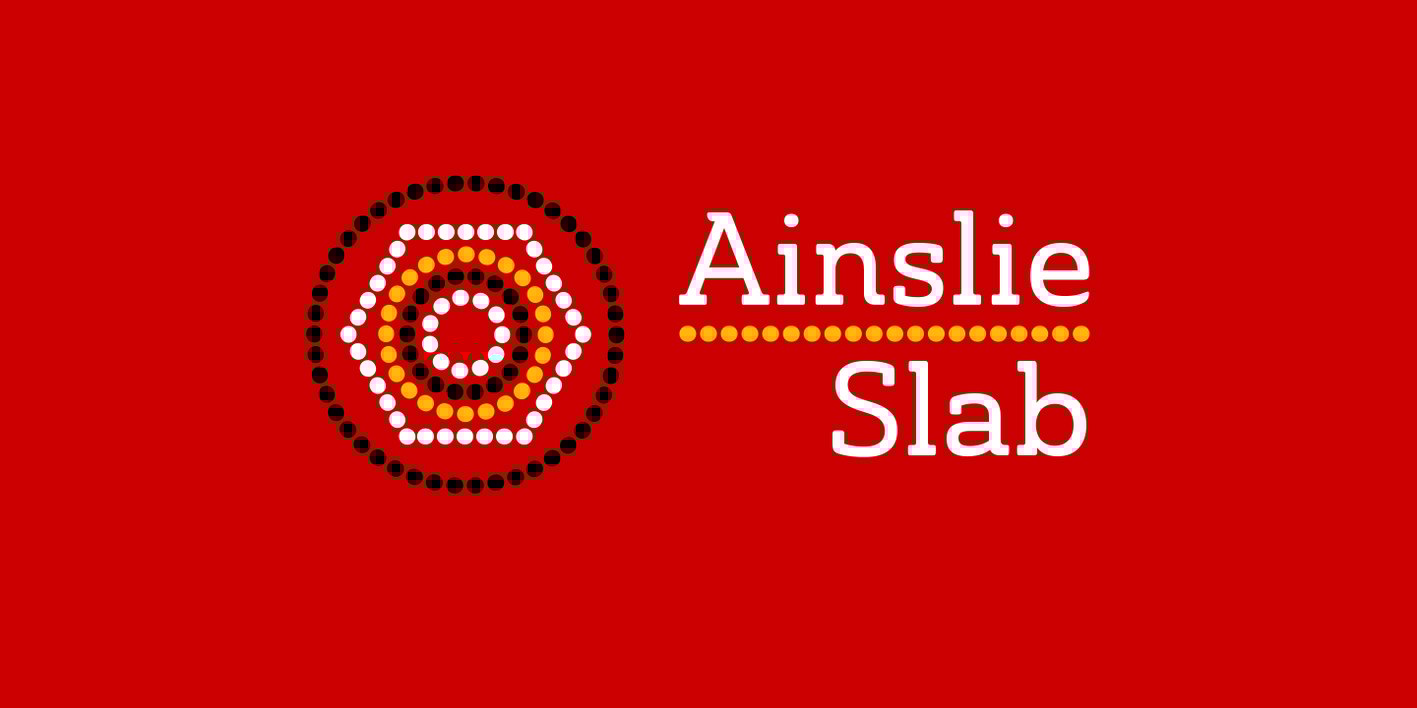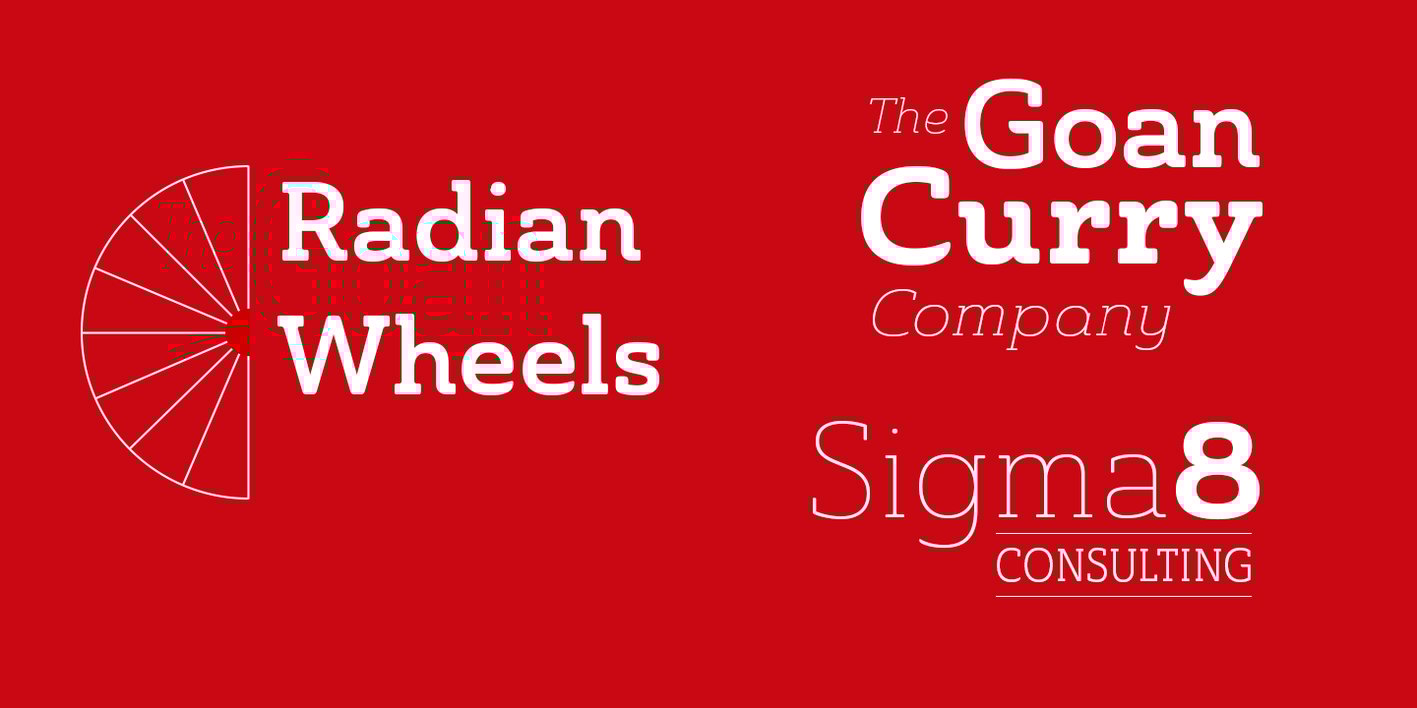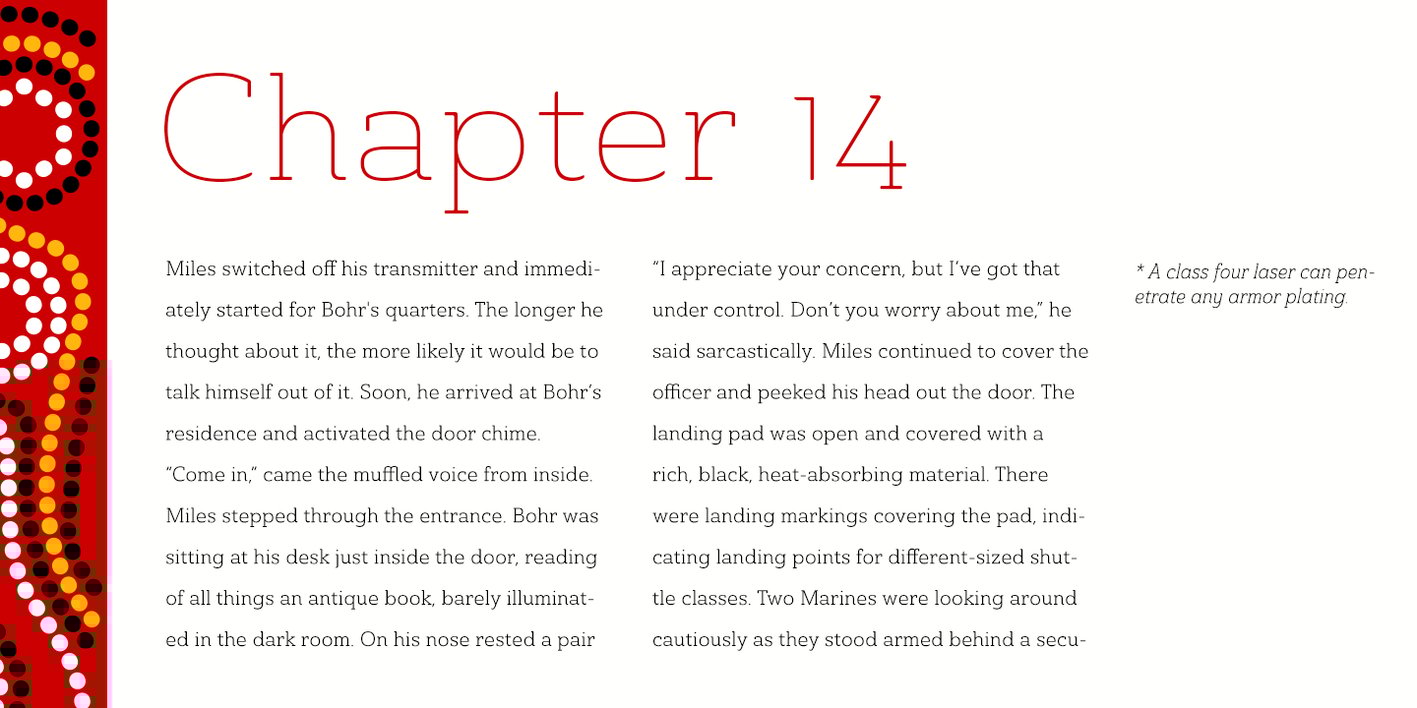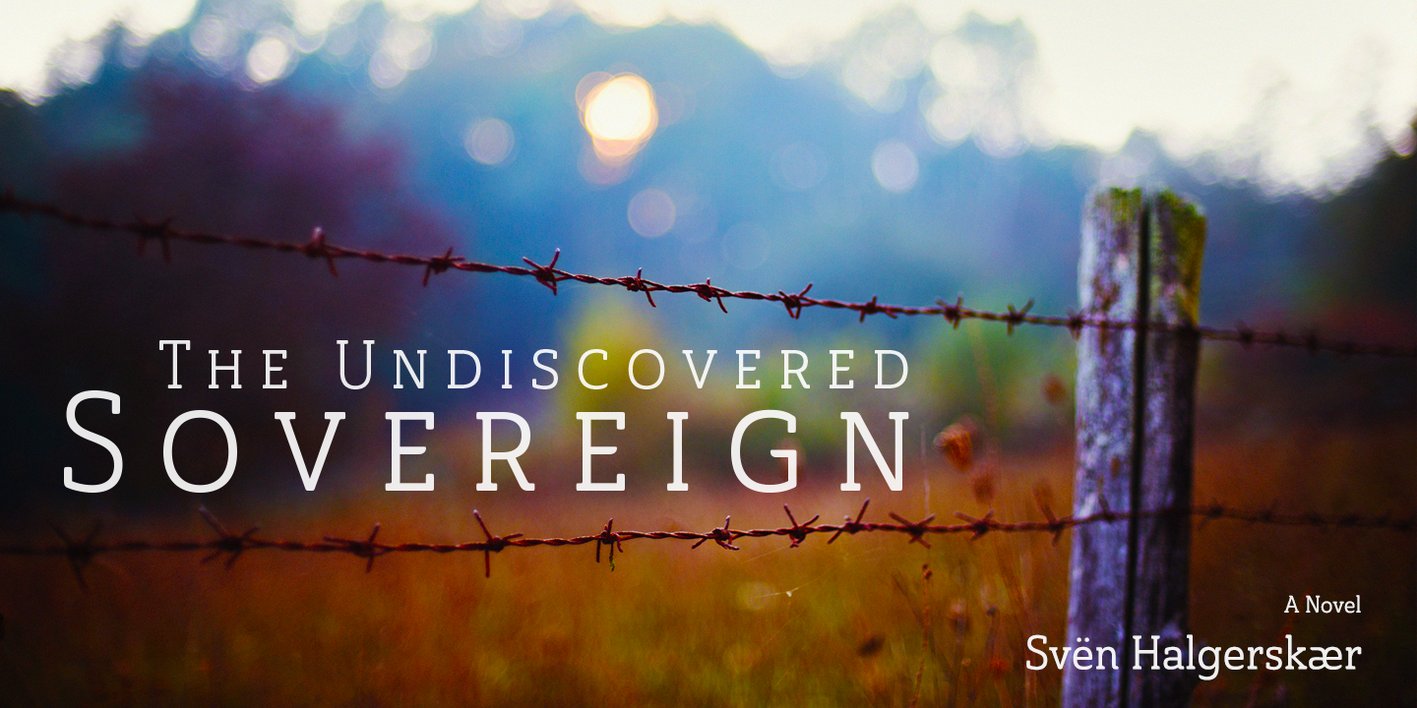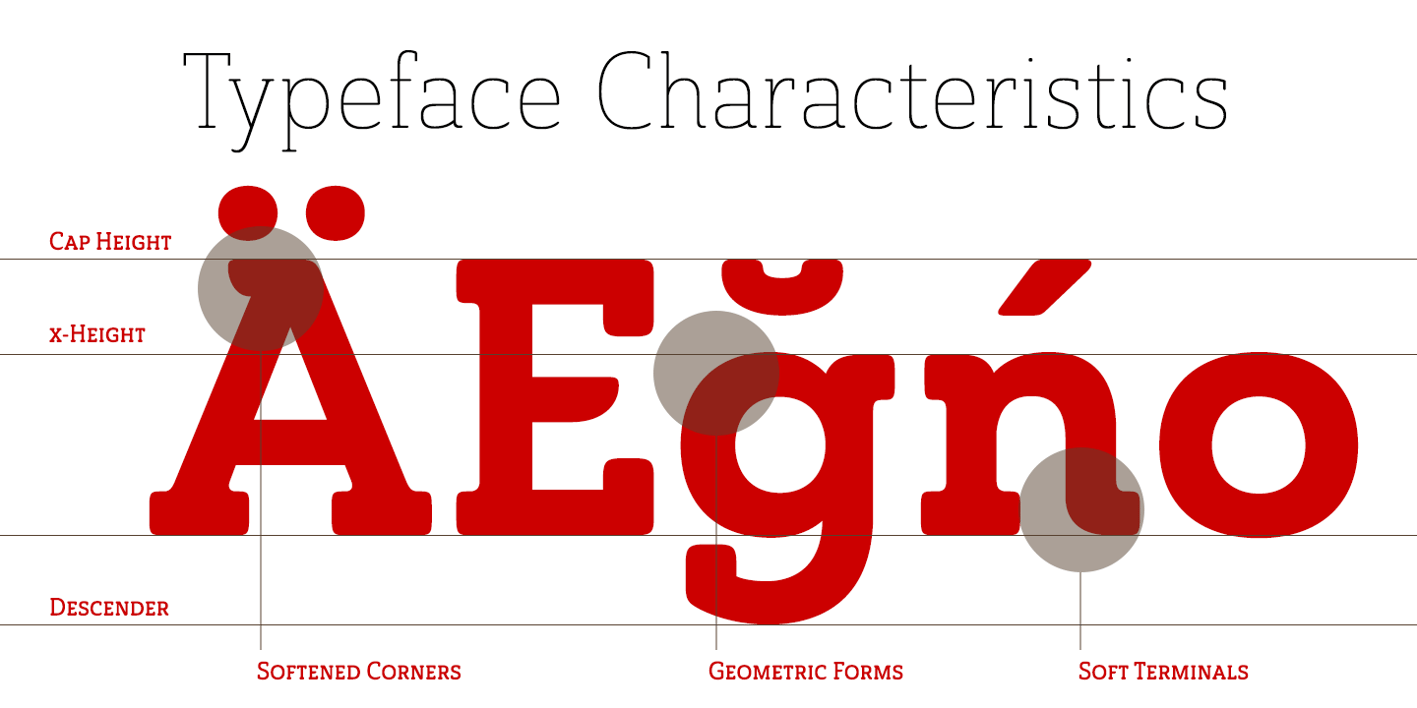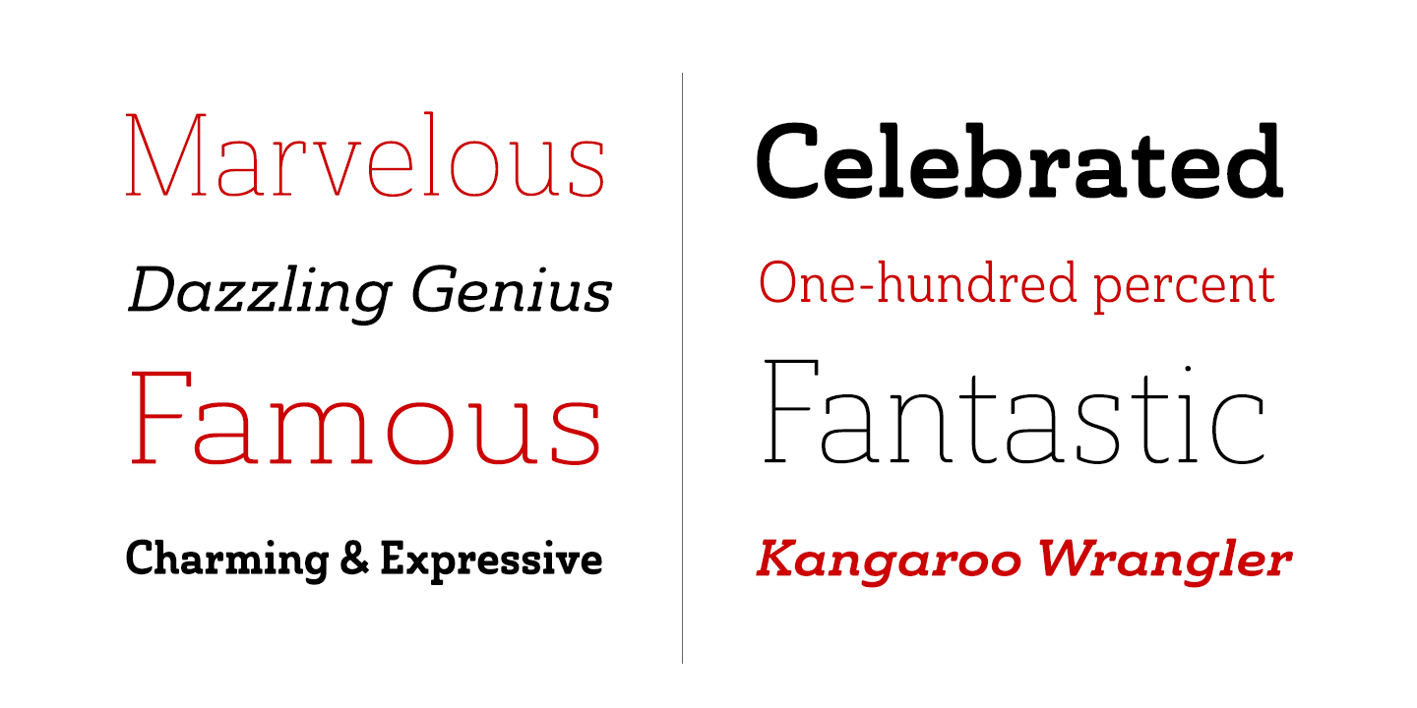
Ainslie Slab Font
Ainslie Slab Font excels in heritage brand storytelling, artisanal craft workshops, traditional Scottish distillery labeling, countryside tourism branding, heirloom family businesses, rustic wedding venues, authentic farm-to-table restaurants, vintage textile companies, handmade pottery studios, and established family legacy brands. This distinguished typeface brings ancestral warmth and generational craftsmanship to any heritage-focused design project.
Ainslie Slab Font is exciting because it embodies the enduring strength and familial warmth associated with cherished family names, featuring robust slab serifs that convey reliability, tradition, and the solid foundation of multi-generational craftsmanship. Its heritage character instantly establishes trust and authentic family values.
The Ainslie Slab Font family includes Light, Regular, Medium, Bold, and Heavy weights with matching italics, plus condensed variants and decorative alternates that enhance the traditional aesthetic, providing designers with comprehensive tools for creating typography that honors family heritage and artisanal traditions.
Heritage brand designers appreciate Ainslie Slab Font for its exceptional ability to convey trustworthiness and generational expertise through carefully balanced letterforms. The font's solid character and traditional appearance create immediate associations with family recipes, time-honored techniques, and the dependable quality that comes from generations of dedicated craftsmanship and family pride.
The cultural authenticity of Ainslie Slab Font draws inspiration from Scottish Highland traditions, family crests, and the rich heritage of clan-based craftsmanship, making it particularly effective for brands seeking to establish connections with ancestral traditions and family values. Creative teams working on heritage products find this font essential for conveying authenticity and generational trust.
Whether used for family distilleries, heritage craft businesses, or generational farming operations, Ainslie Slab Font delivers the perfect combination of traditional reliability and family warmth. Its ancestral appeal and heritage authenticity make it an indispensable choice for brands that celebrate family legacy, traditional craftsmanship, and the enduring values passed down through generations.